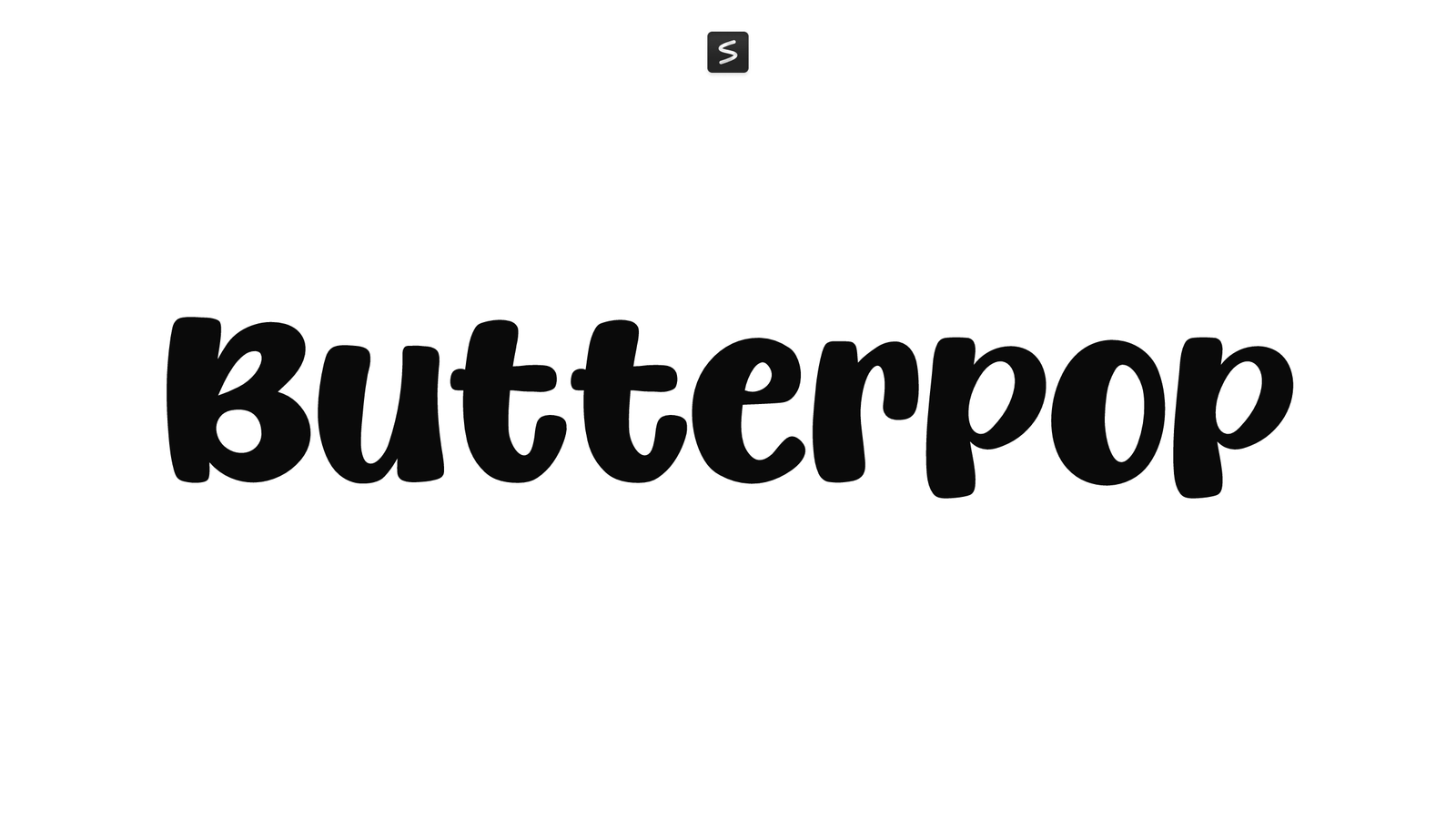
Butterpop is a bold, rounded display font by Khurasan™ with chunky letterforms and a distinctly cartoonish character. The soft corners and high contrast give it an animated, approachable quality that feels playful without being frivolous.
The font works well for projects that need a friendly, energetic presence: children’s book covers, toy packaging, animated title sequences, social media graphics, or casual branding for entertainment and creative businesses. Its rounded forms read clearly at any size, making it equally useful for headlines and body text in casual contexts.
Butterpop brings a sense of movement and personality to designs that call for warmth and approachability. It’s a straightforward choice when you want text that feels alive.